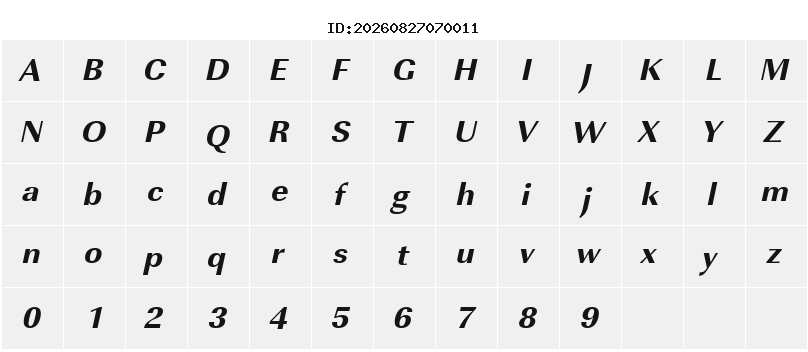
508-CAI978  Preview
About 508-CAI978 .ttf
508-CAI978 .ttf is a modern, elegant sans-serif font designed for ultimate readability and visual harmony. Perfect for branding, headlines, web design, and print materials.